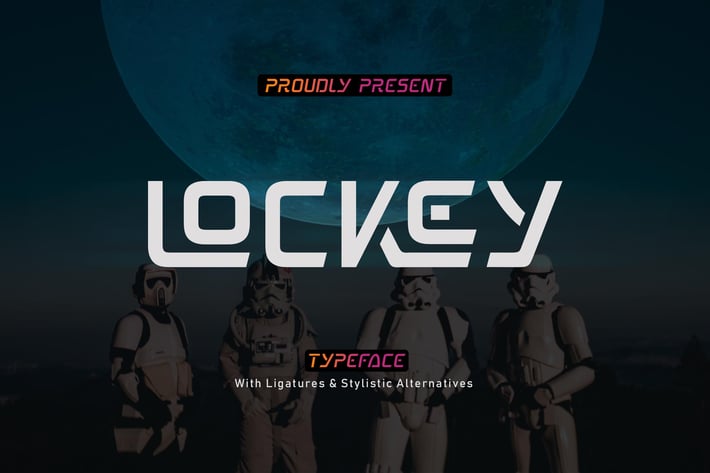
Lockey Typeface
Lockey Typeface is inspired by futuristic design concepts and space-like design concepts. This font is good for future, modern, space, sports, bold and speed themed designs.
This font is perfect for collecting on your computer for up-and-coming design projects or work in progress, because the Brave Eighty One has no trending period, and will always look cool whatever year it is.